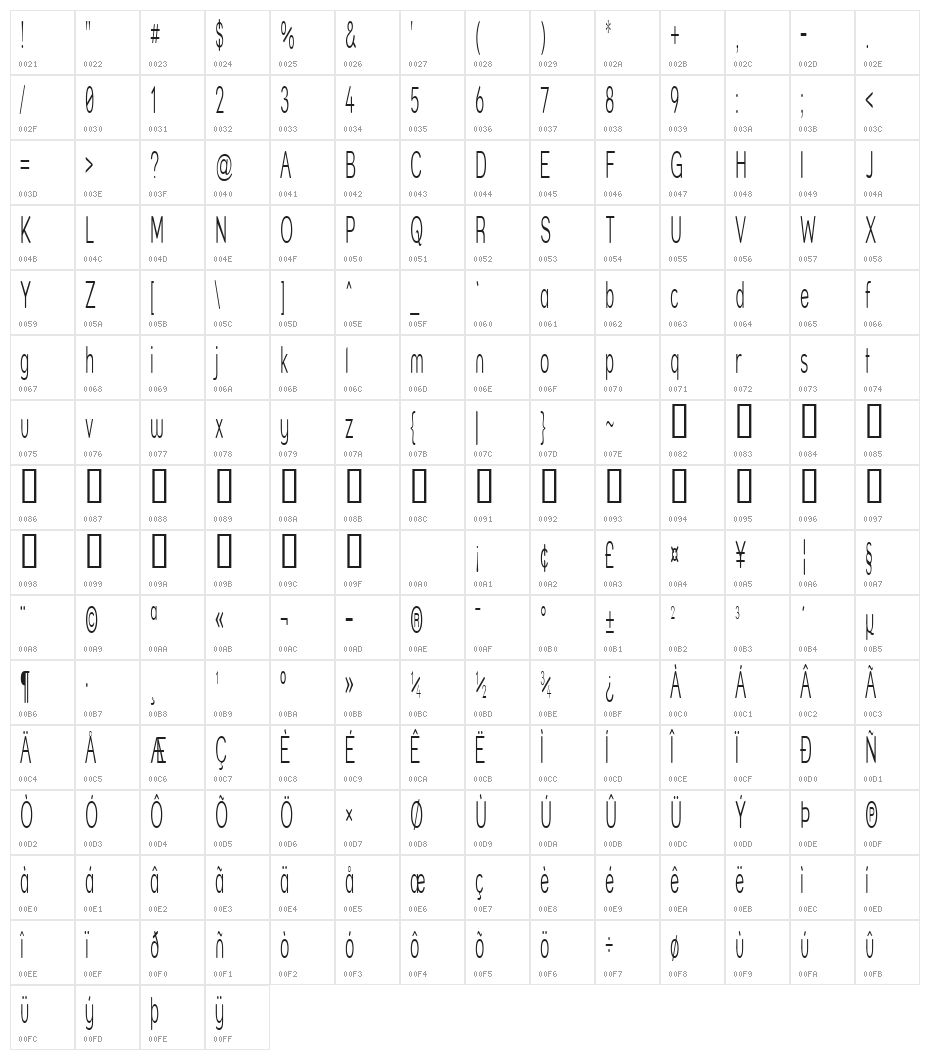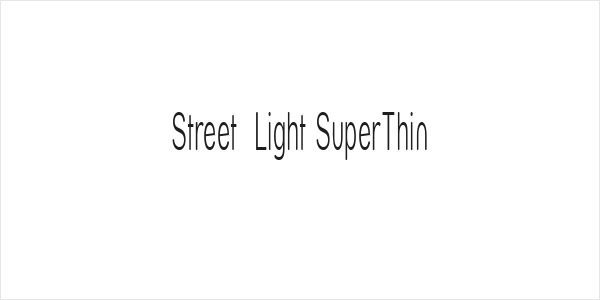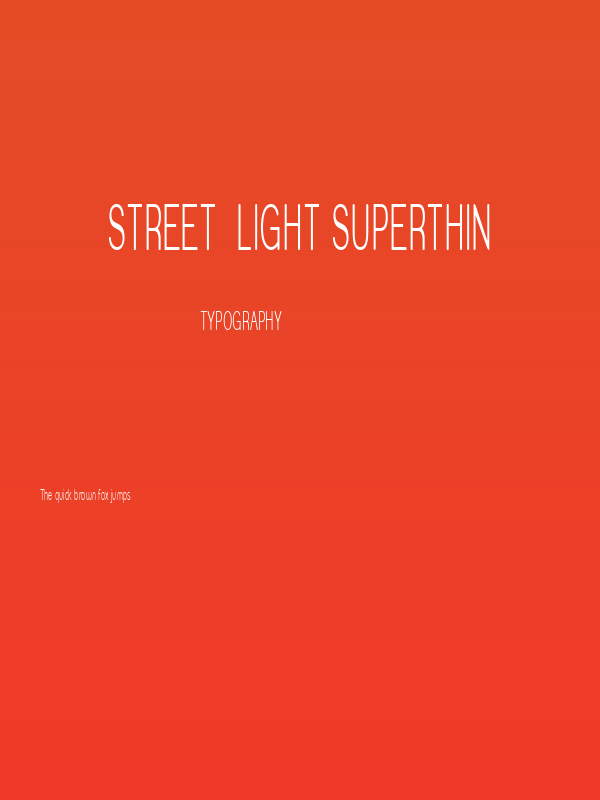
Street Light SuperThin Font
Street Light SuperThin Description
This font features a sleek and modern design with ultra-thin strokes, creating a minimalist and elegant appearance. The characters are evenly spaced, providing a clean and airy feel. The uppercase and lowercase letters maintain a consistent height, contributing to a harmonious look. The numerals and special characters are designed with the same thin lines, ensuring uniformity across all elements. Its simplicity and clarity make it suitable for contemporary design projects where readability and style are essential.
| Proposed Projects | Ideal for modern branding, minimalist posters, sleek website headers, and elegant invitations. |